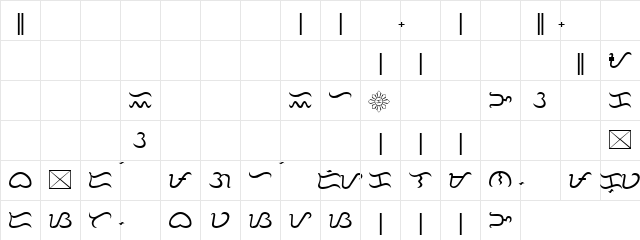
Tagalog Stylized Regular Free Font
Tagalog Stylized Regular
Design Context for Tagalog Stylized
Tagalog Stylized is a composed and adaptable typeface that performs quietly and consistently across a wide range of design contexts.